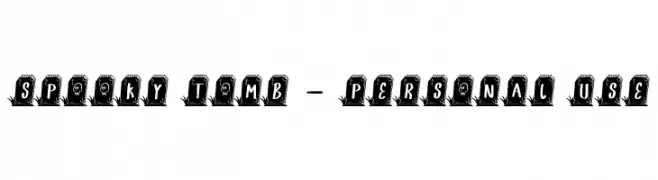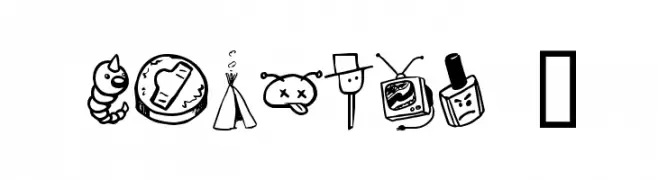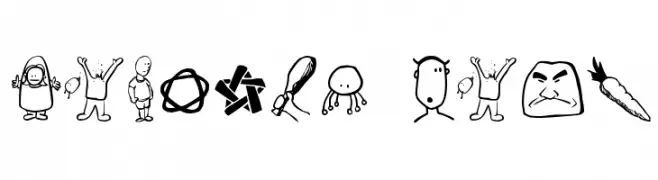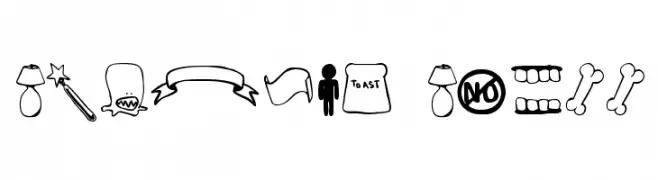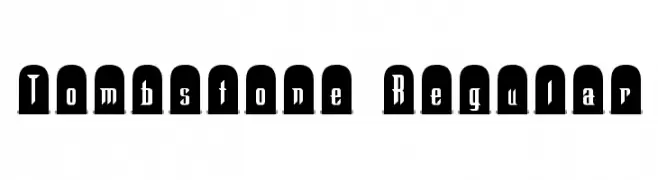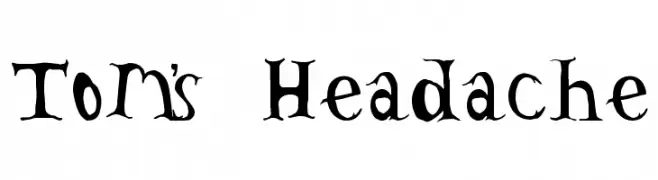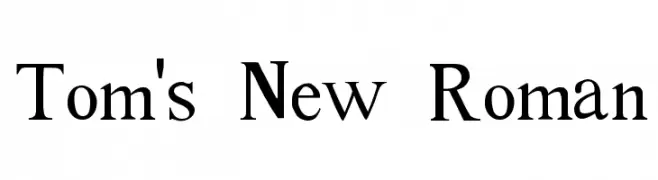
( Fonts by Annisa Afni )
A spooky, tombstone-themed font with a playful, hand-drawn style.
( Fonts by Divide By Zero! - fonts.tom7.com )
A quirky, hand-drawn font with irregular, jagged edges and playful character design.
( Fonts by Divide By Zero! - fonts.tom7.com )
A playful collection of hand-drawn smiley and character illustrations.
( Fonts by Divide By Zero! - fonts.tom7.com )
A playful set of hand-drawn doodles and illustrations with a quirky, cartoonish style.
( Fonts by Divide By Zero! - fonts.tom7.com )
A classic serif font with elegant, traditional letterforms and moderate contrast.
( Fonts by Divide By Zero! - fonts.tom7.com )
A playful, doodle-based decorative font featuring whimsical illustrations.
( Fonts by Divide By Zero! - fonts.tom7.com )
A whimsical, doodle-inspired font featuring unique hand-drawn illustrations.
( Fonts by Divide By Zero! - fonts.tom7.com )
A whimsical collection of doodle-like illustrations with a playful and informal style.
( Fonts by Divide By Zero! - fonts.tom7.com )
A playful, childlike handwritten font with irregular strokes.
( Fonts by Divide By Zero! - fonts.tom7.com )
A playful dingbat font with whimsical, hand-drawn illustrations.
( Fonts by Divide By Zero! - fonts.tom7.com )
A whimsical, hand-drawn robot-themed font with playful and unique characters.
( Fonts by Divide By Zero! - fonts.tom7.com )
A playful, informal handwritten font with irregular strokes and a whimsical style.
( Fonts by Andreas Hofeld - www.fontgrube.de )
A playful and artistic handwritten font with dynamic curves and angles.
( Font by Jonathan Harris - www.tattoowoo.com )
A dynamic and artistic script font with elongated strokes and bold numerals.
( www.junkohanhero.com )
A bold, rounded font with a playful and robust appearance.
( Fonts by Thomas Ledin - tomledin.com )
A bold, playful font with thick, rounded strokes and a whimsical, hand-drawn feel.
A sleek, italicized font with a modern and sophisticated style.
A clean, geometric font with consistent stroke widths and a modern aesthetic.
A modern, geometric font with a sleek and sophisticated design.
A bold, rounded font with a playful, retro aesthetic.
( Fonts by Tom van der Linden )
( Fonts by Jehoo Creative )
A playful, hand-drawn font with rounded, friendly characters.
A geometric, angular font with a modern and minimalistic design.
A geometric, modern font with clean lines and a futuristic feel.
A sleek, extra-light italic font with a modern and geometric design.
A bold, italic font with a dynamic and modern design, perfect for impactful headlines.
A thin, italicized font with a geometric and modern design.